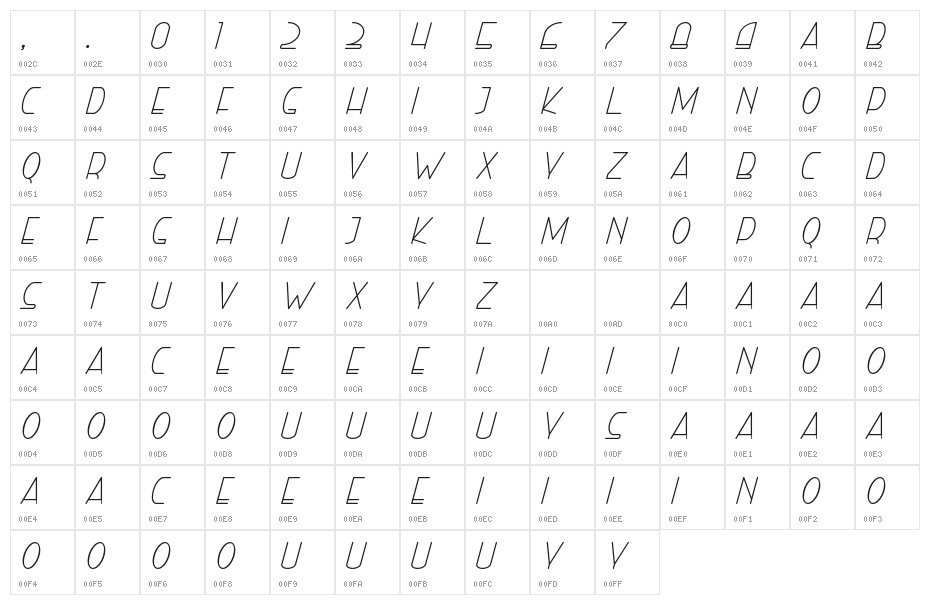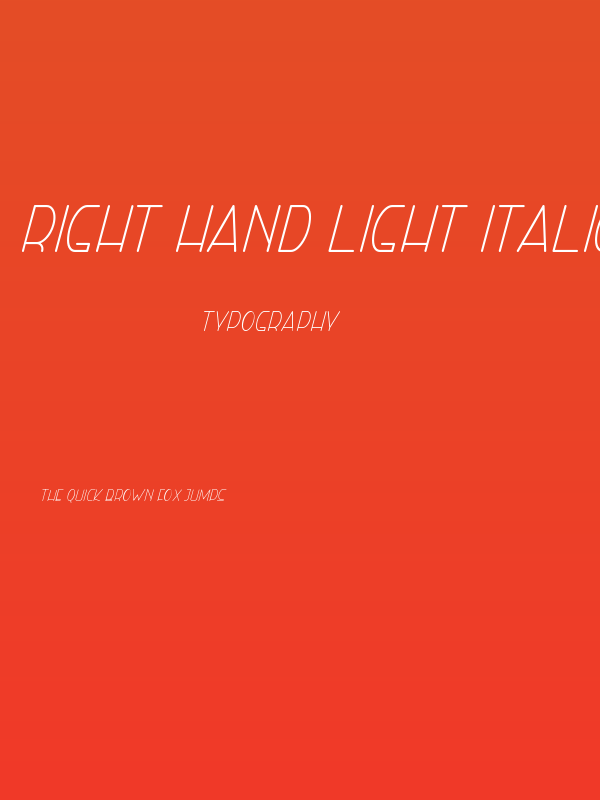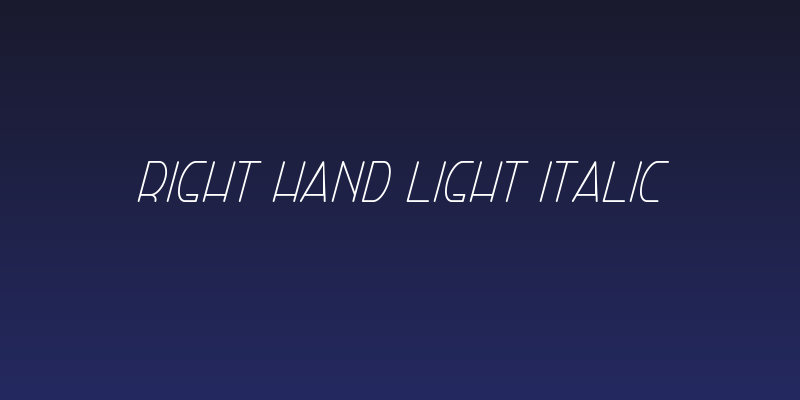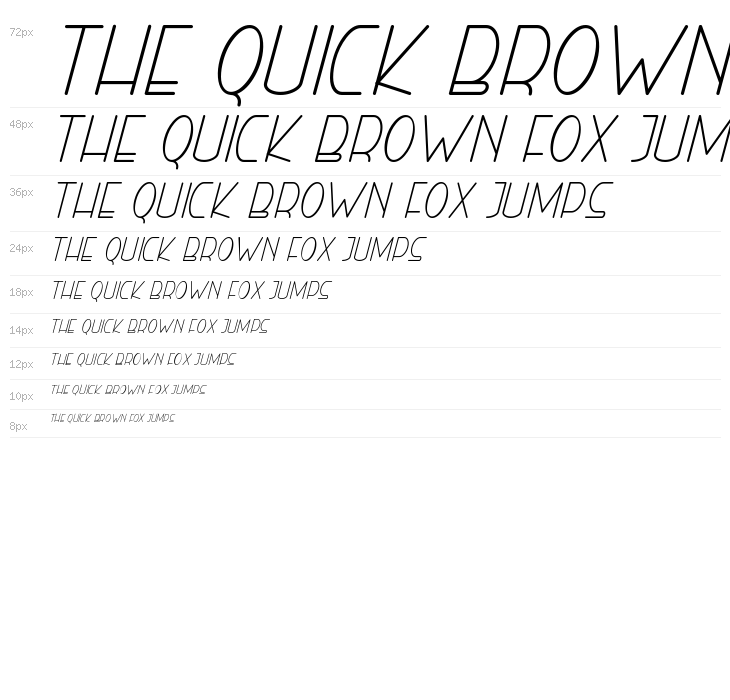
Right Hand Light Italic Font
Right Hand Light Italic Description
This font features a sleek, modern design with a distinct italic slant, giving it a dynamic and forward-moving appearance. The characters are crafted with a light weight, contributing to an airy and elegant feel. The strokes are consistent in thickness, providing a uniform look across all characters. The font's geometric structure is evident in the clean lines and sharp angles, particularly noticeable in the uppercase letters. The numerals and special characters maintain the same stylistic approach, ensuring cohesion throughout the typeface. Its minimalist aesthetic makes it suitable for contemporary design projects.
| Use Case | Headlines, Branding, Editorial Design |
| Proposed Projects | Ideal for modern branding, editorial design, and digital interfaces where a clean, contemporary look is desired. |